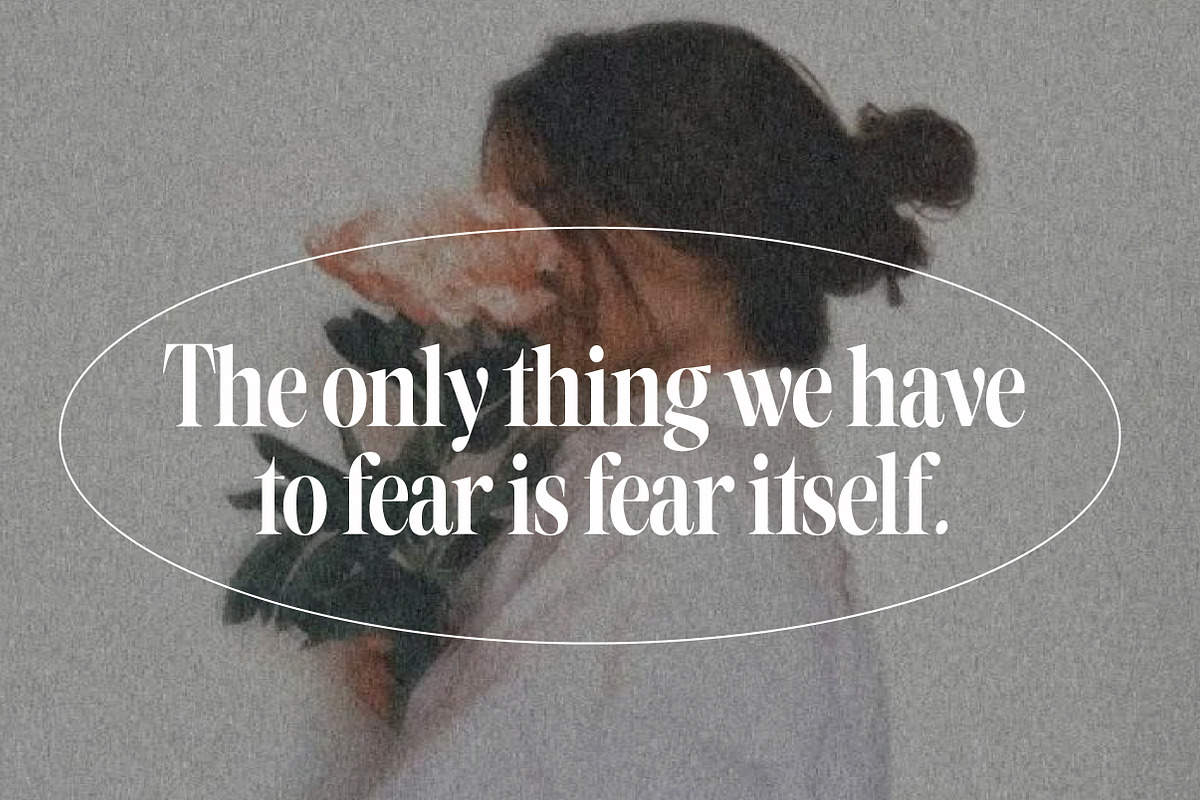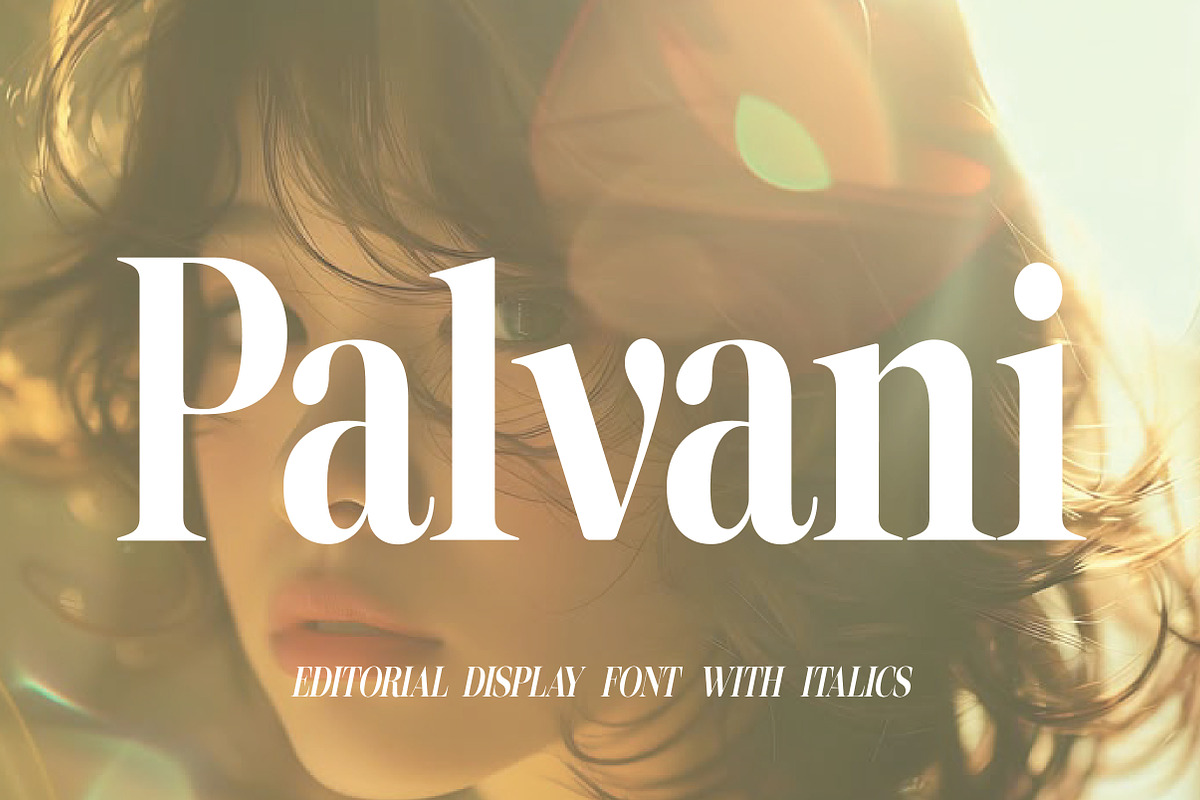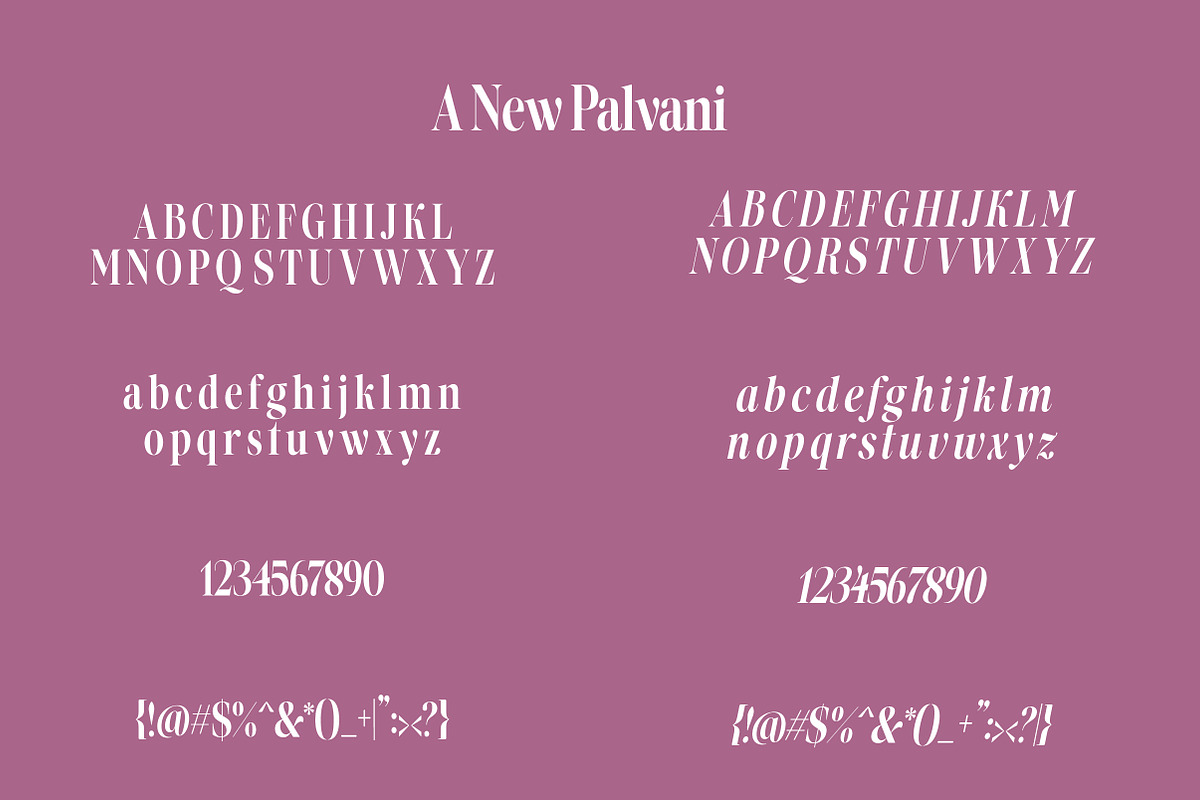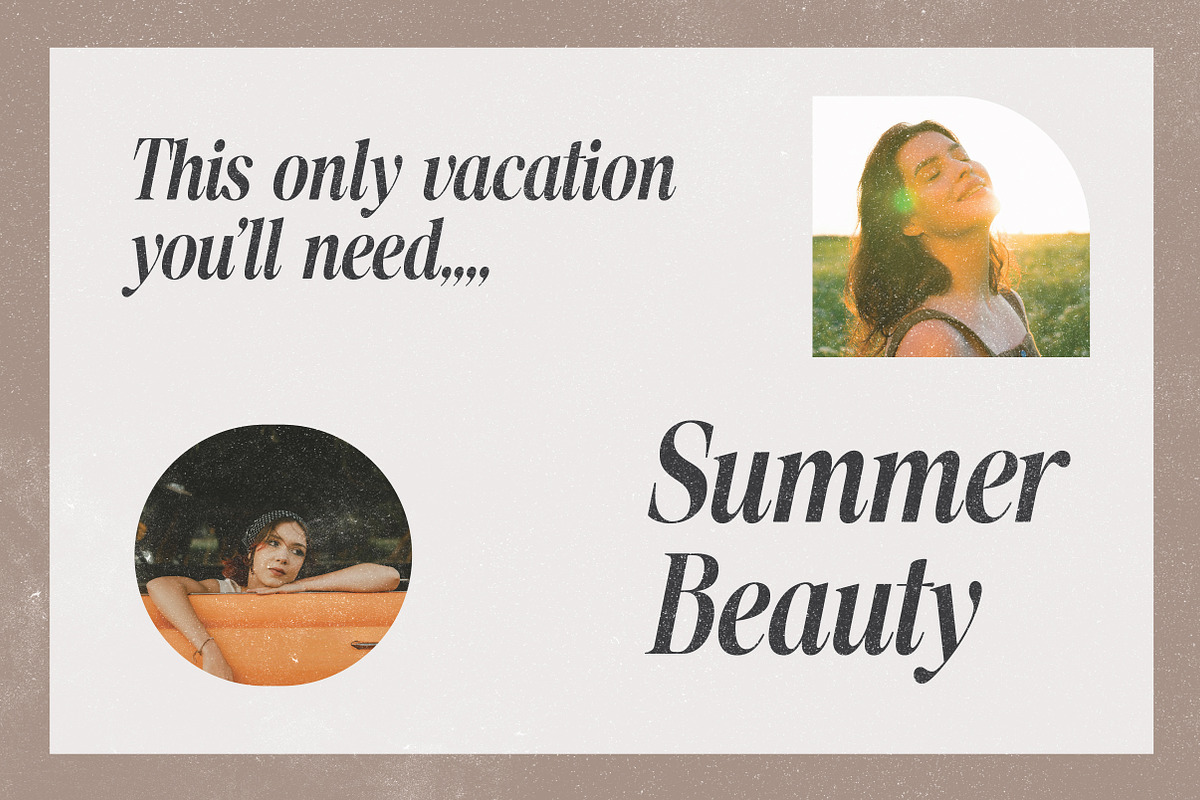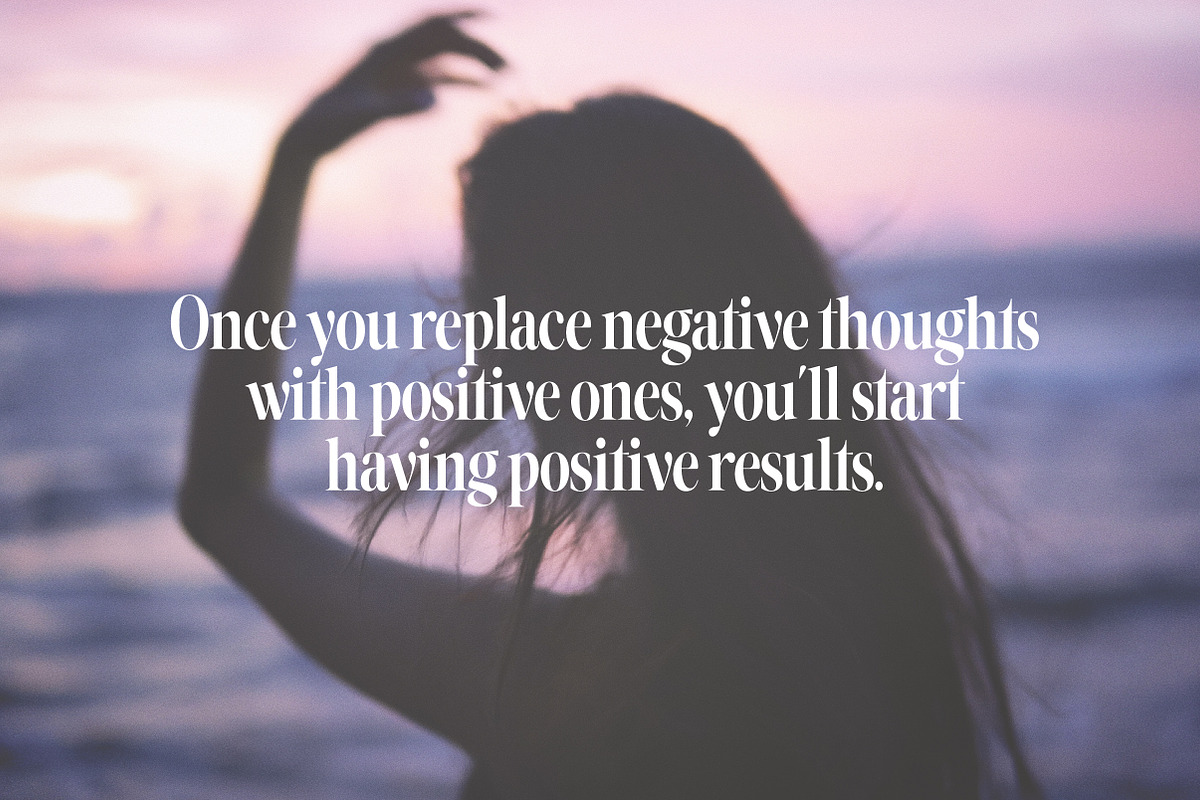
Palvani | Modern Elegant Serif Typef
Palvani is a modern serif typeface that blends classic sophistication with clean, contemporary aesthetics. Offered in both Regular and Italic styles, Palvani features sharp serifs, graceful curves, and smooth lines—perfect for branding, editorial design, logos, luxury packaging, wedding invitations, and high-end digital content. The Regular style provides clarity and balance for both body text and headlines, while the Italic version adds expressive contrast and refined style for quotes, highlights, and elegant touches.
Palvani is a timeless and versatile serif duo designed to bring clarity, sophistication, and premium style to all of your design projects.